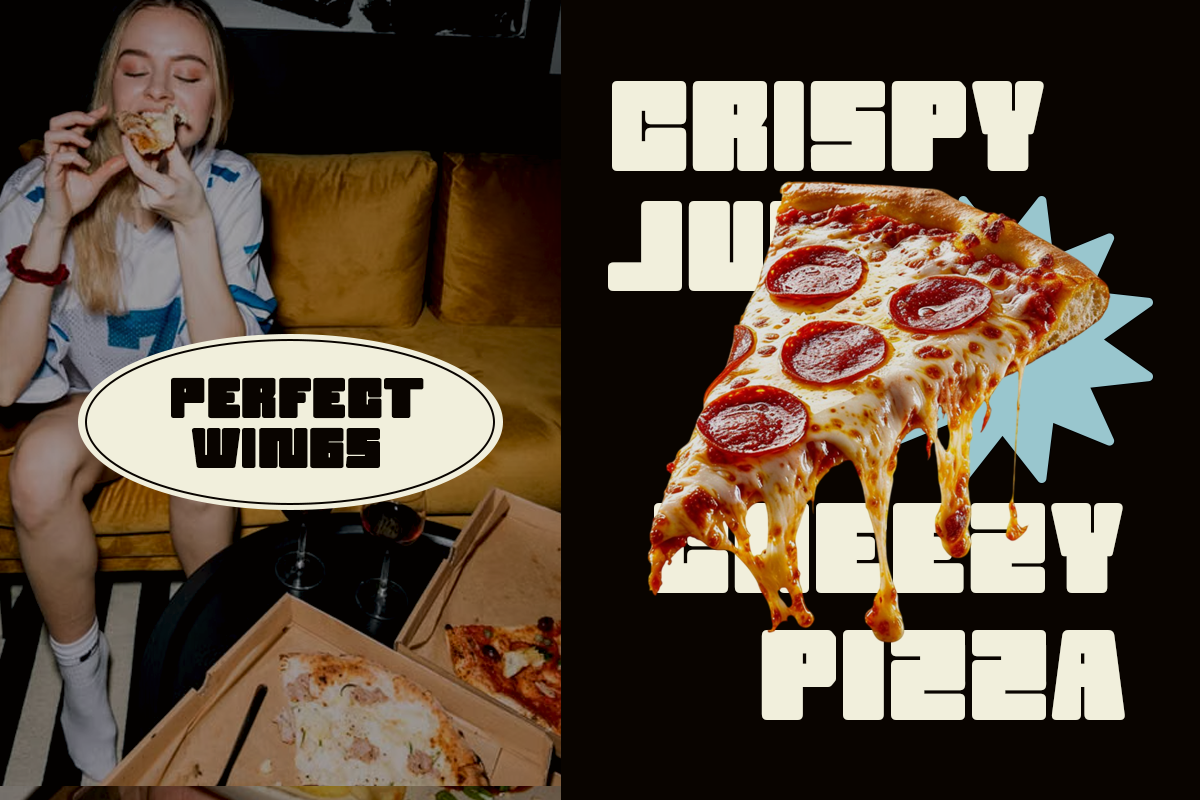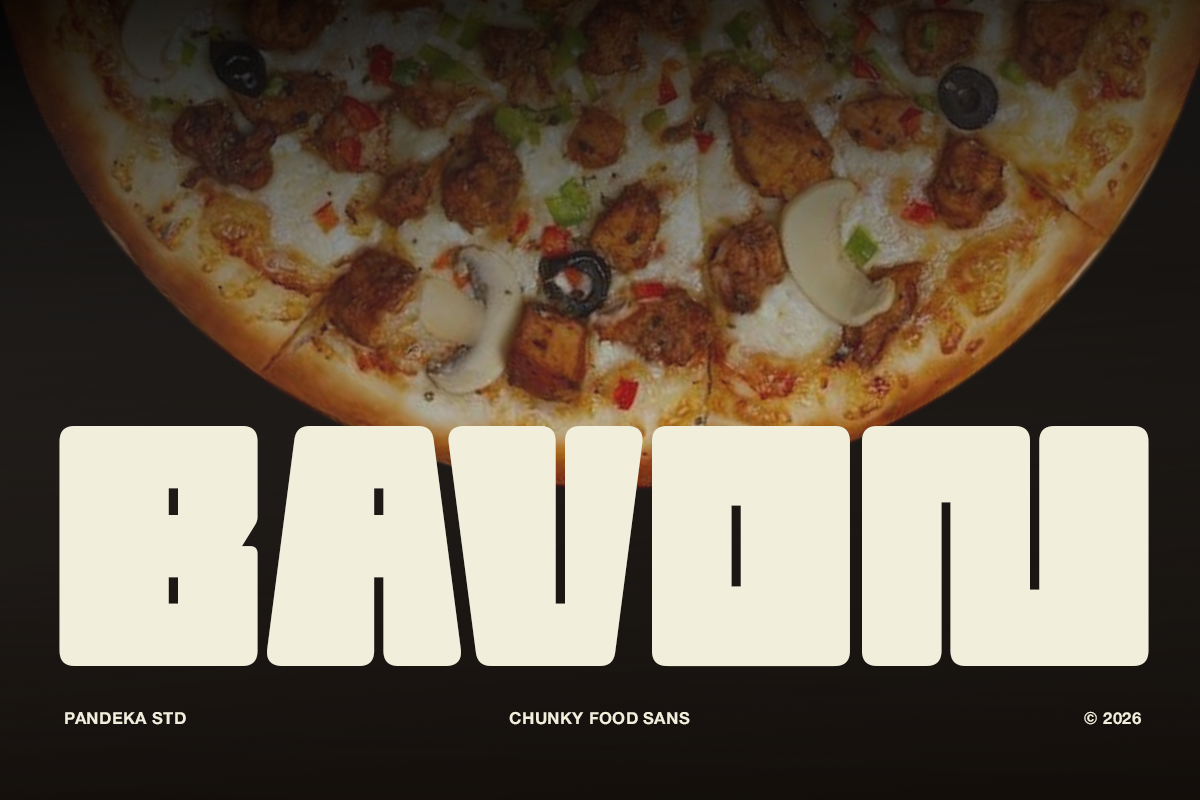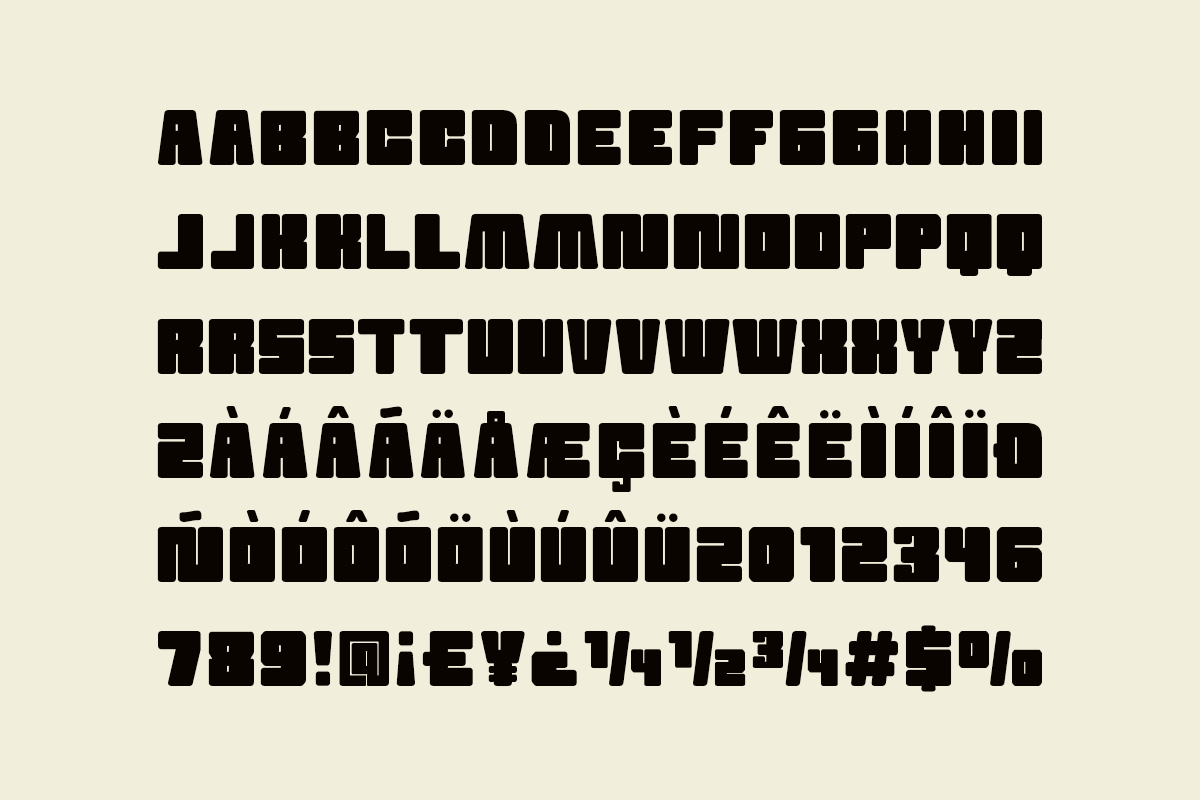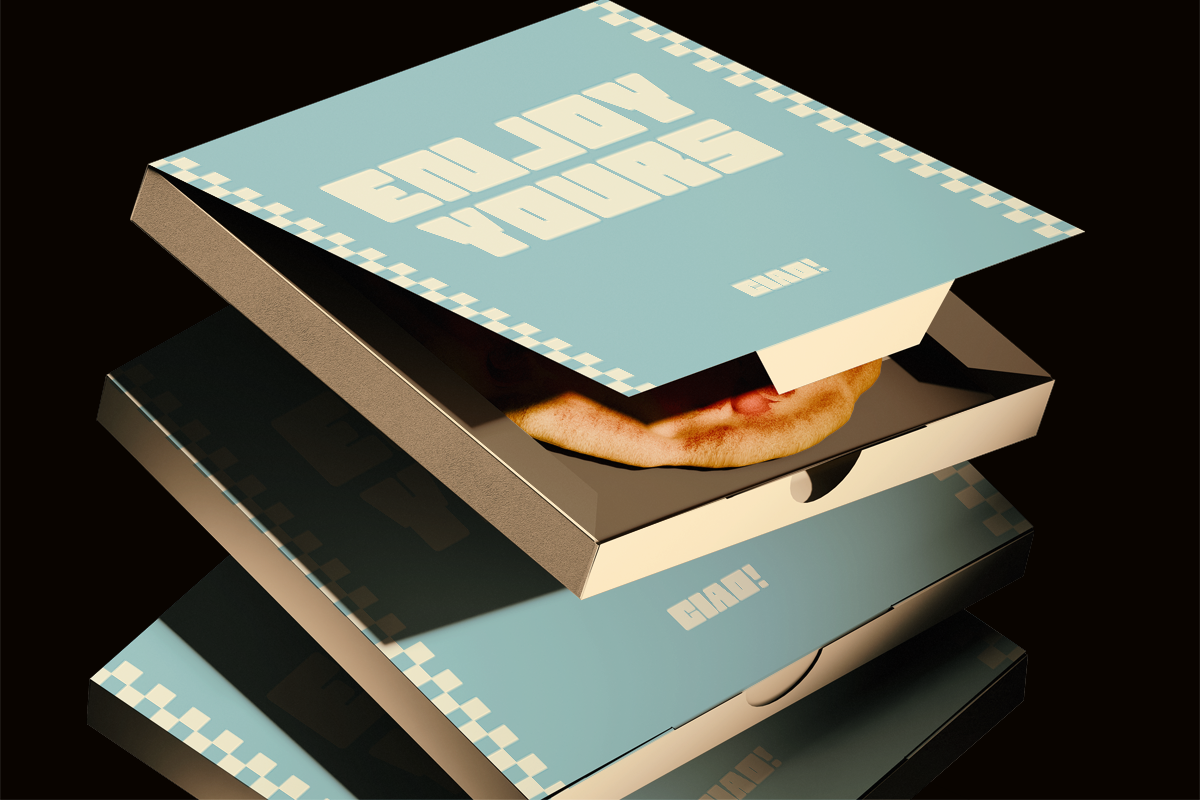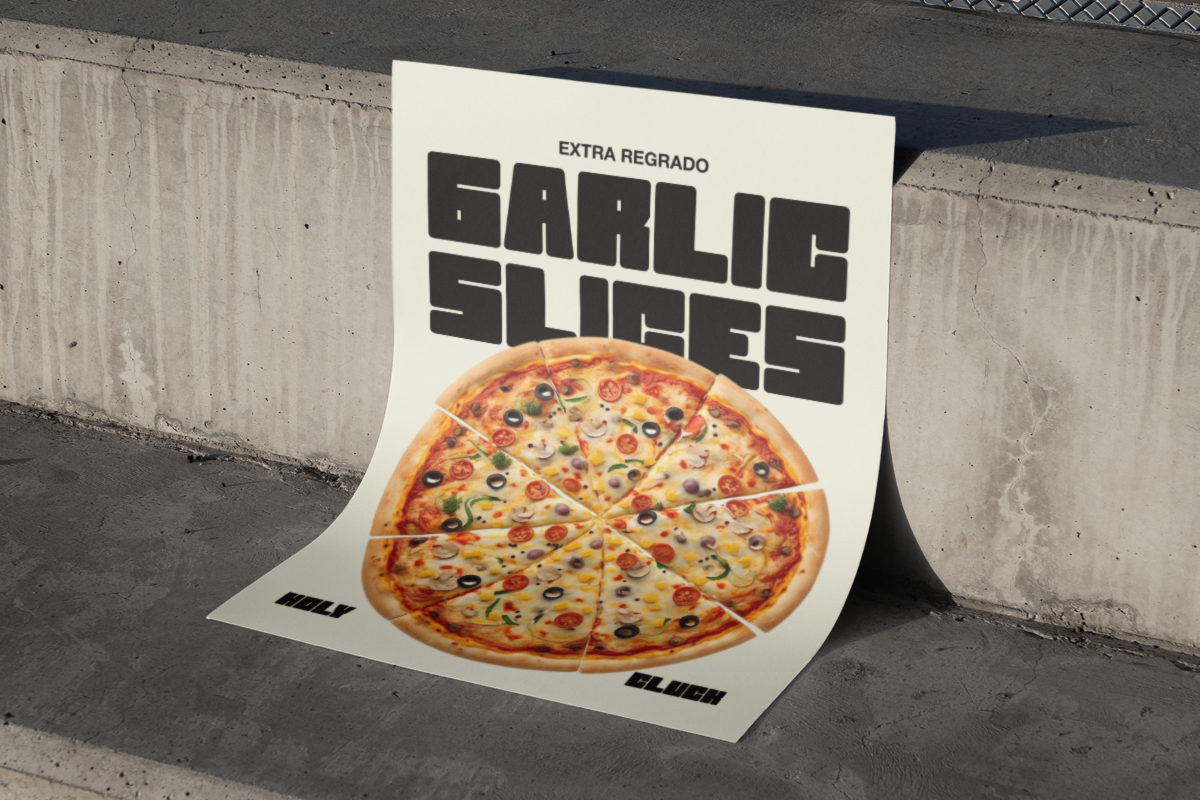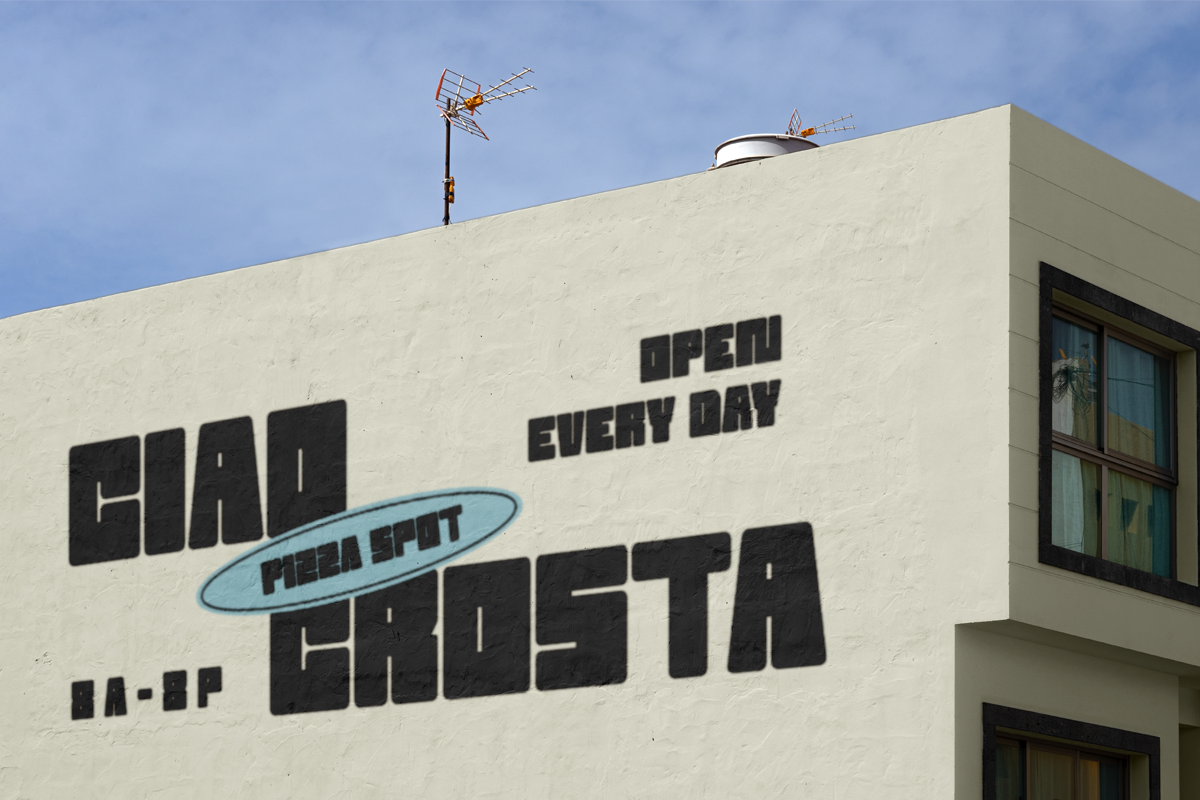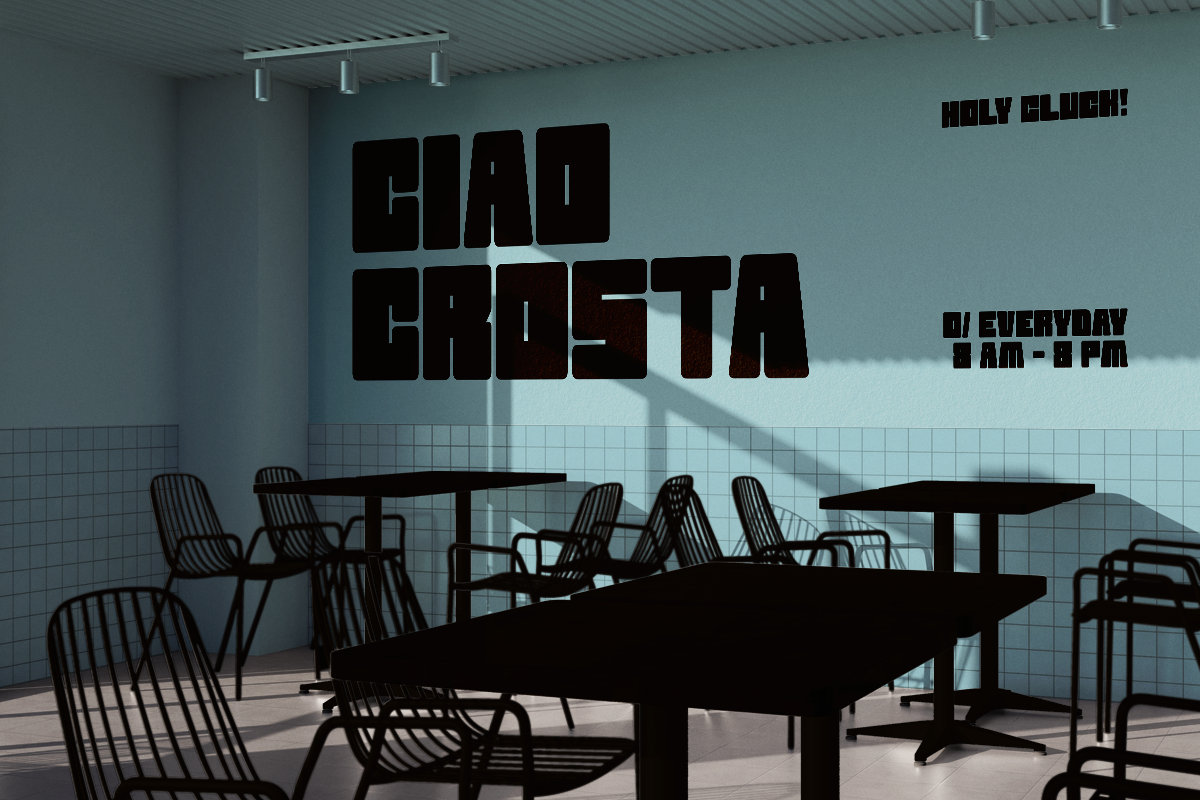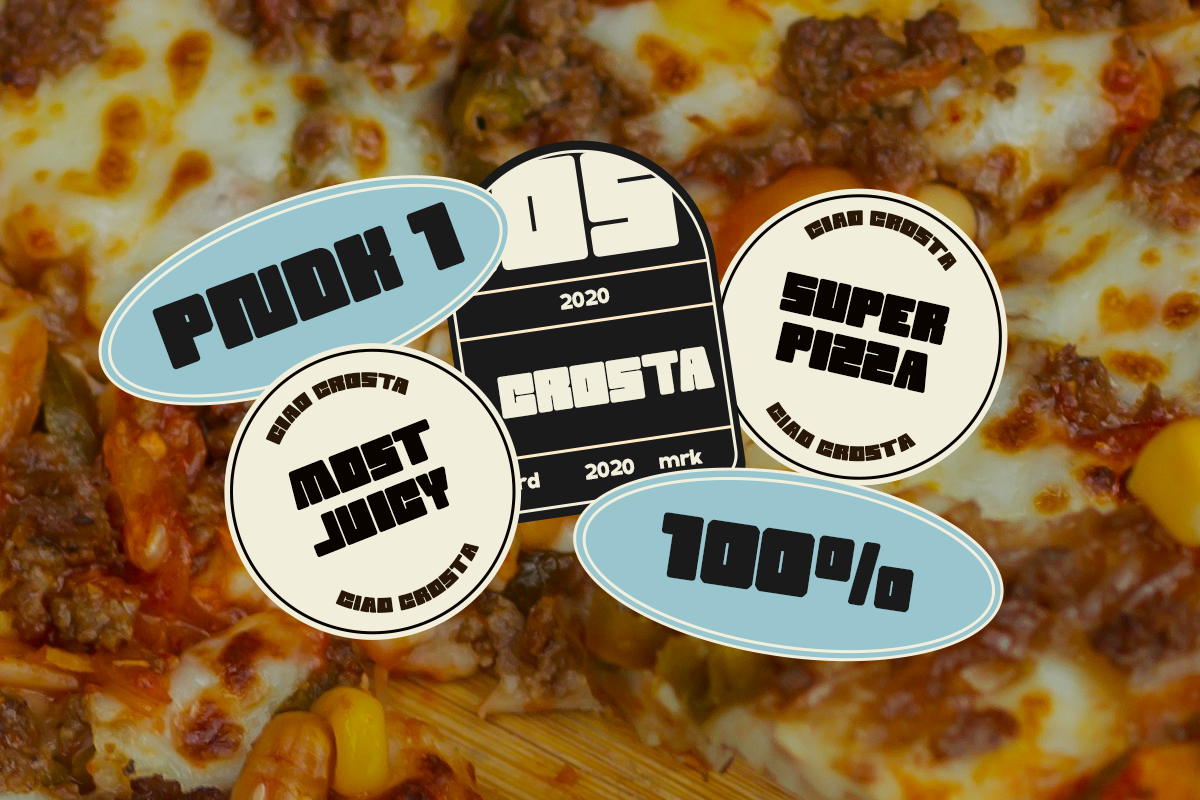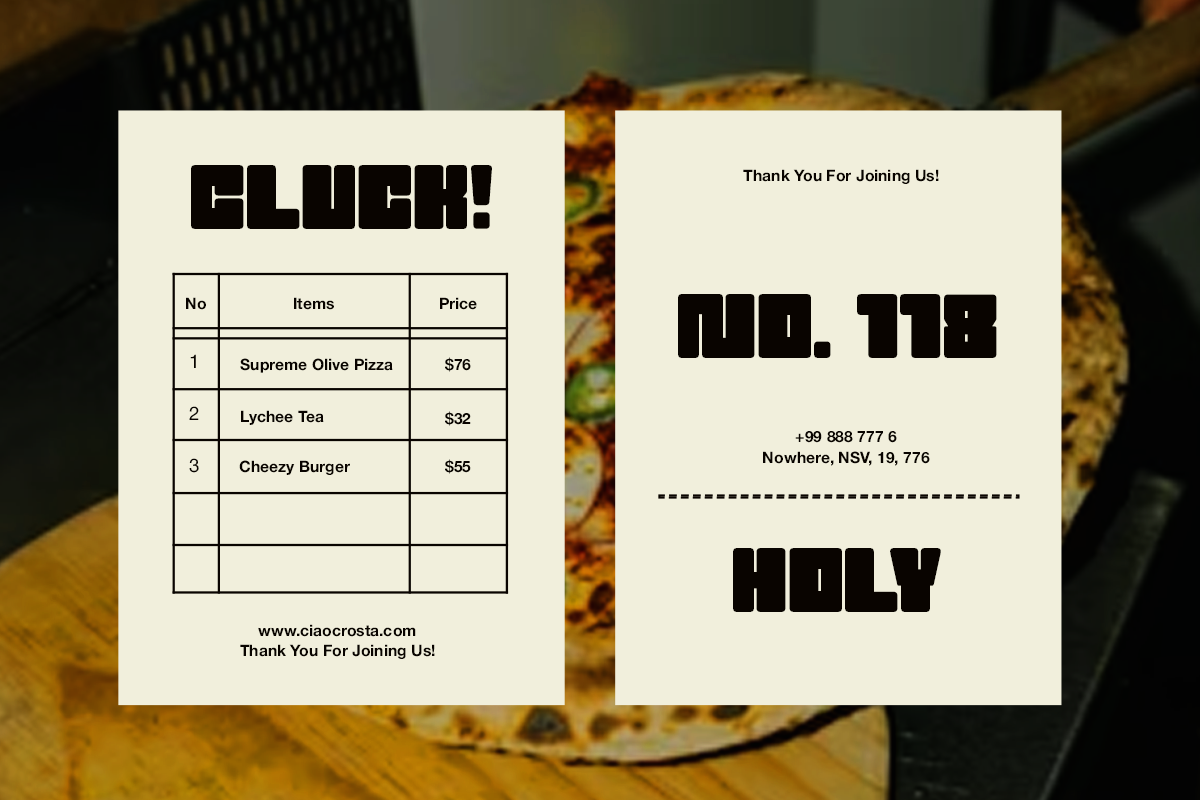
Bavon - Chunky Food Sans Font
Bavon is a chunky food sans font designed to bring bold flavor and playful energy to food-related branding. Featuring thick geometric letterforms with a strong, compact appearance, it creates eye-catching headlines that are perfect for restaurants, fast food brands, snack packaging, and promotional designs while remaining highly readable across print and digital media.
Available in 1 style: Regular, Bavon is ideal for food branding, pizza shops, burger restaurants, cafés, food trucks, bakery promotions, menu designs, product packaging, product labels, posters, social media graphics, website headers, signage, promotional materials, logos, and modern food campaigns. It also includes multilingual support, making it suitable for creative projects worldwide.
Full Character Set: Uppercase, lowercase, numbers, symbols, and punctuation